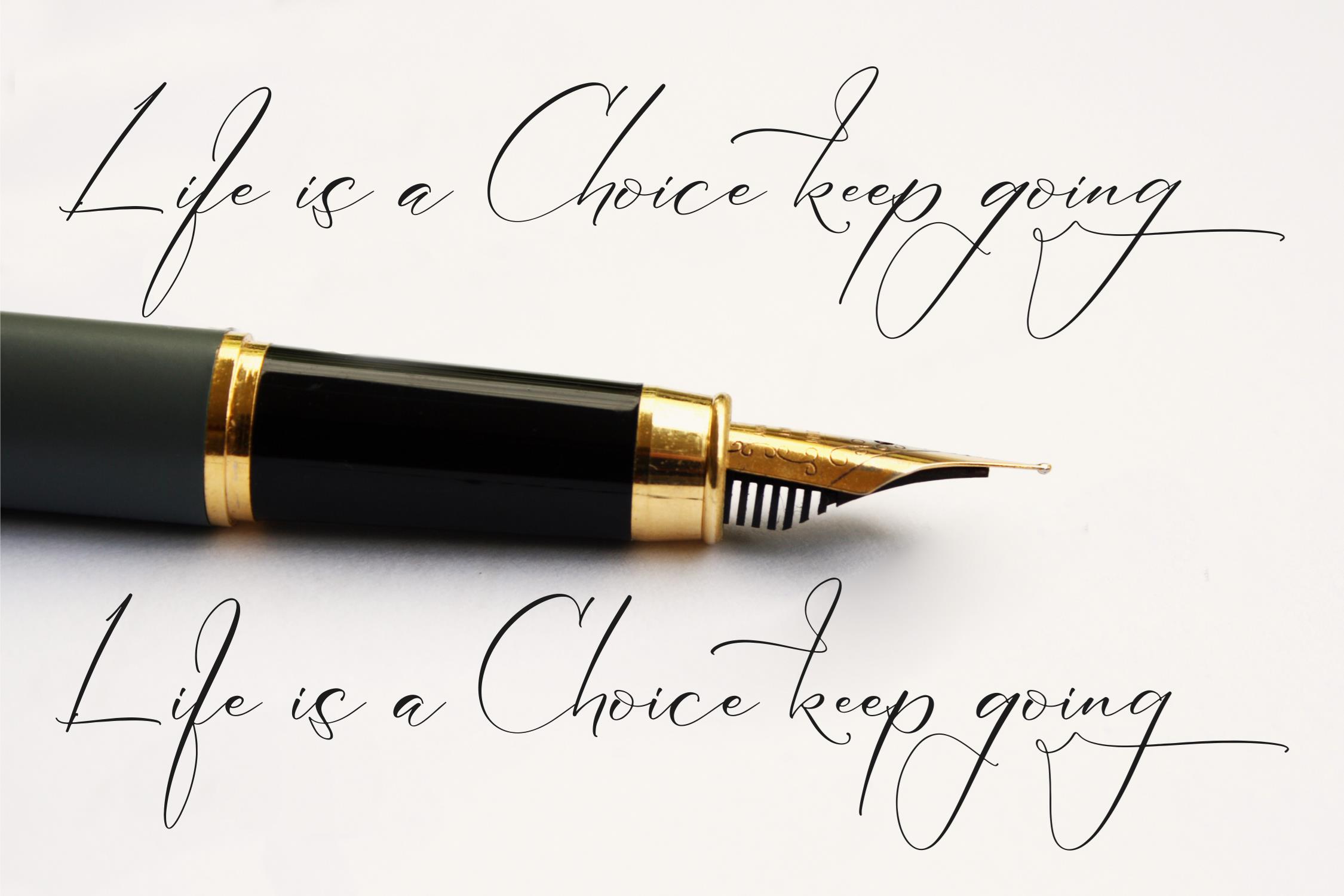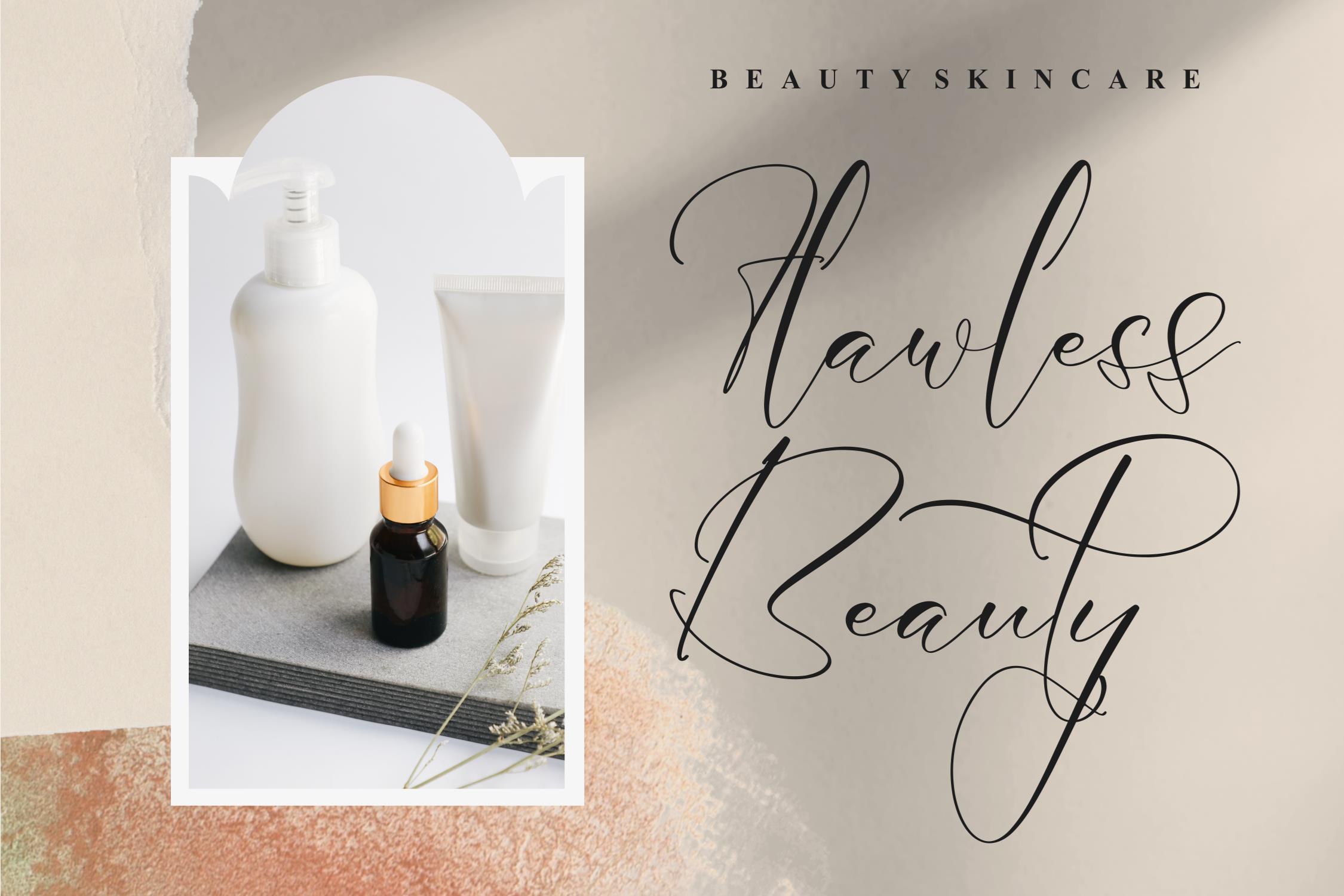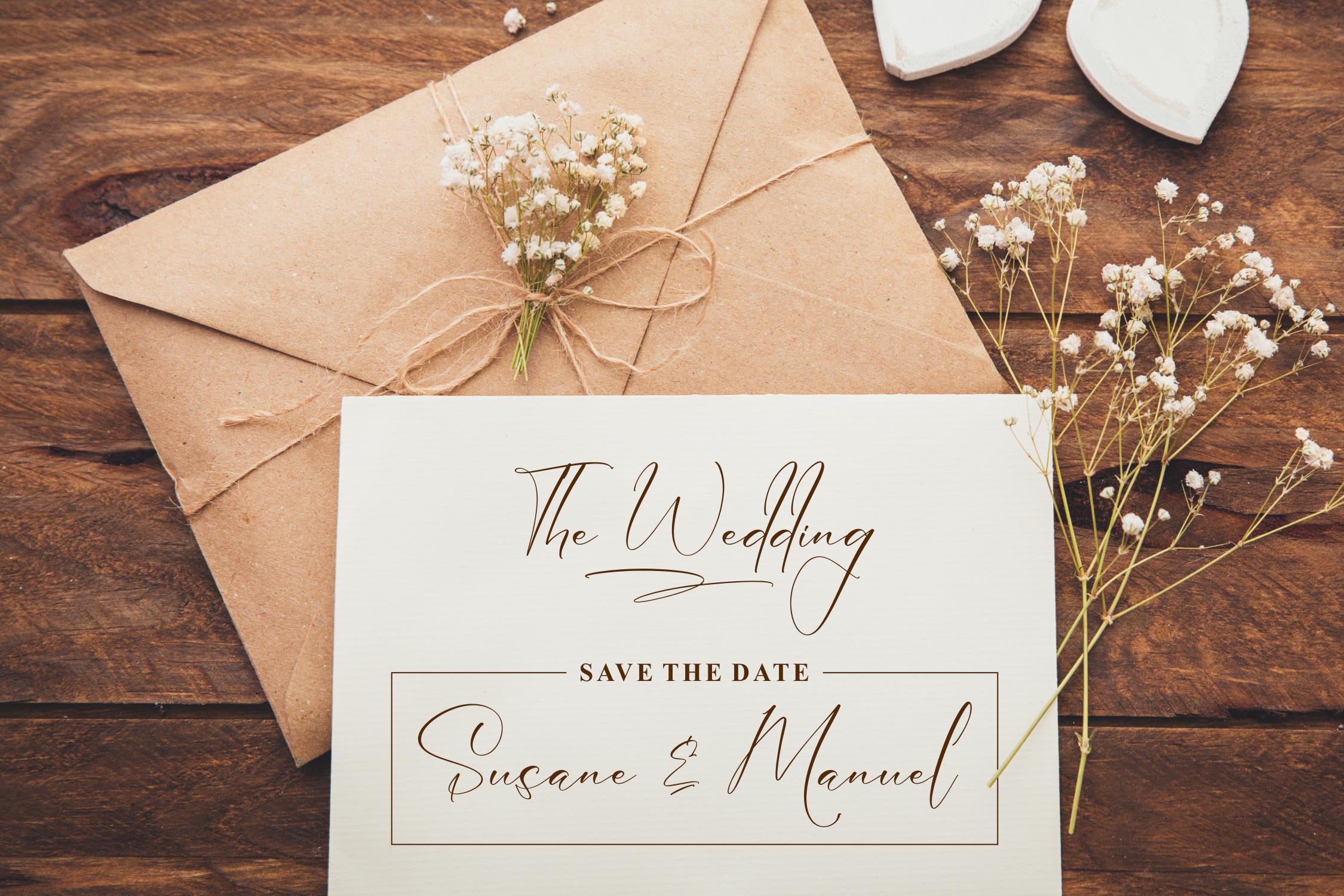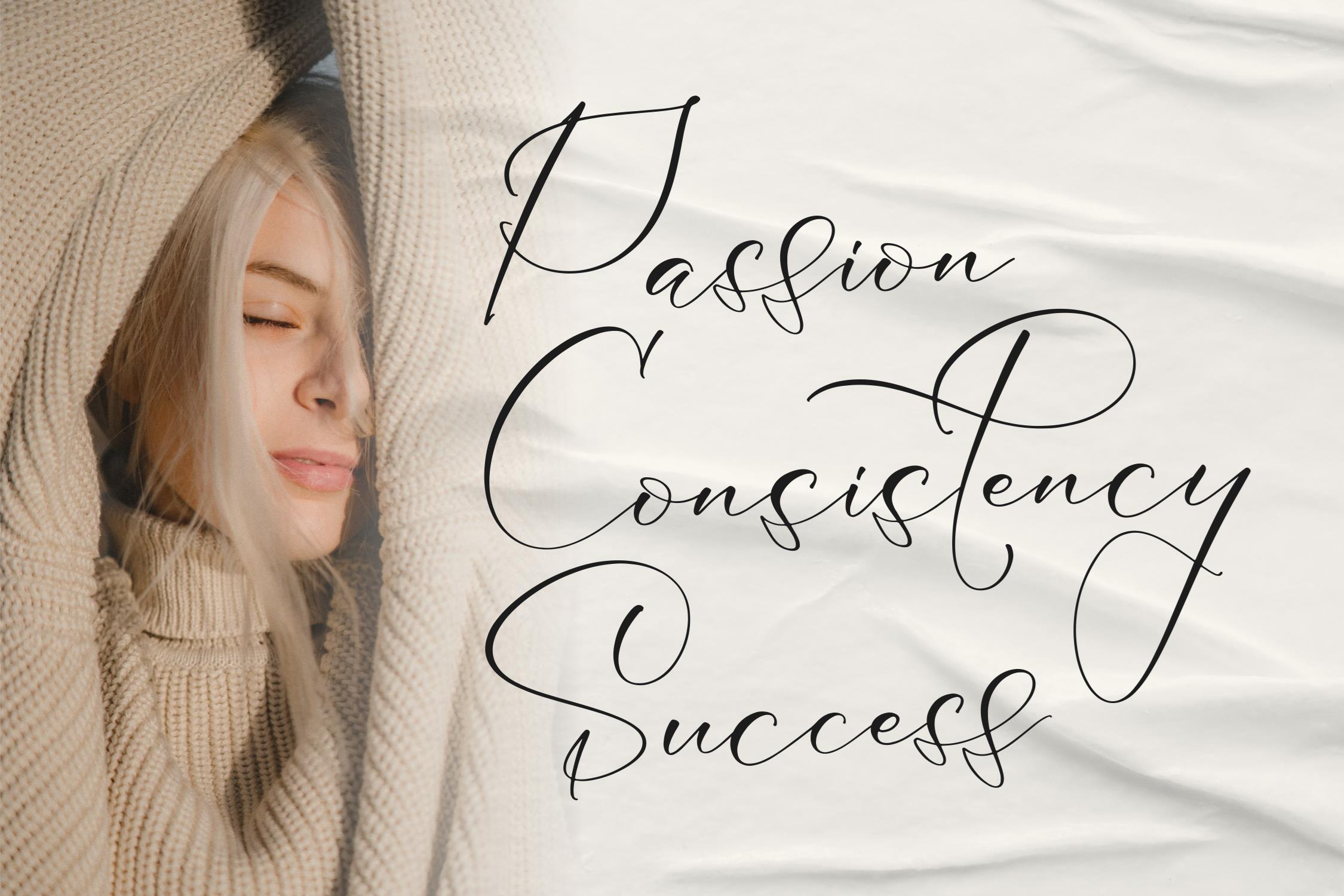
Salmanda Hannah Font
Salmanda Hannah Script Font
This is a beautiful script font, suitable for any projects such as: logos, branding projects, homeware designs, product packaging, mugs, quotes, posters, shopping bags, t-shirts, book covers, name card, invitation cards, greeting cards, label, photography, watermark, special events, and all your other lovely projects that need a beautiful script taste.